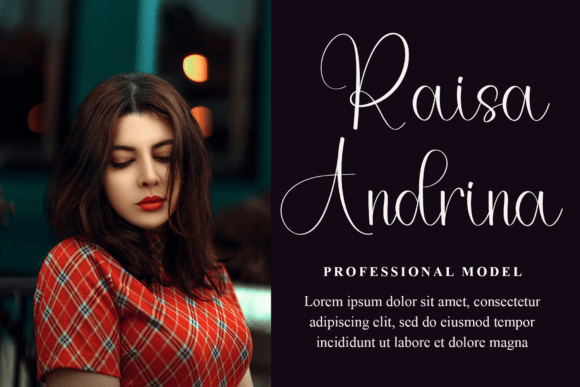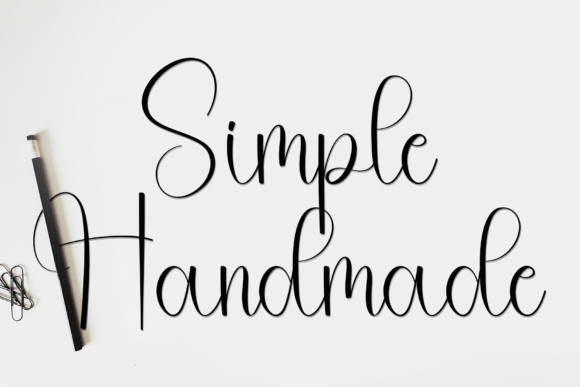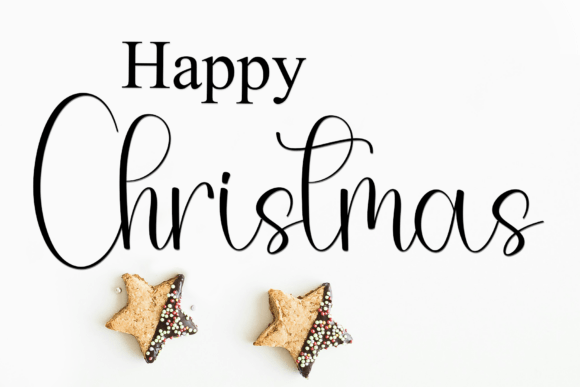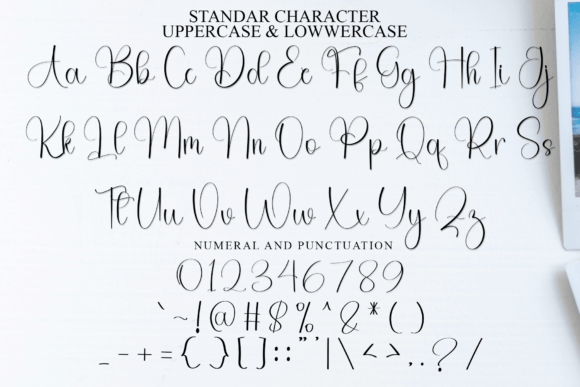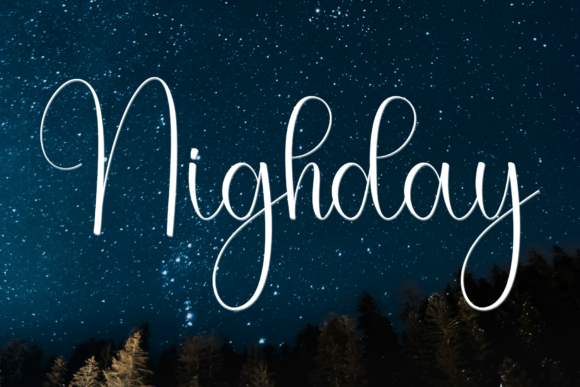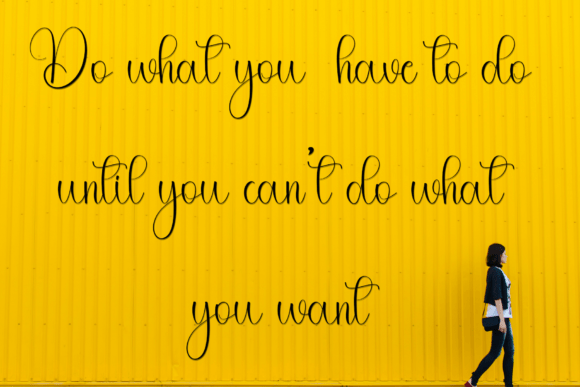
Dreaming Font: Elevate Your Designs with a Soft and Unique Touch
In the world of typography, fonts play a crucial role in making designs stand out. One such font that has gained attention for its distinctive and eye-catching style is the Dreaming Font. Designed with a soft and unique touch, this font is perfect for designers, crafters, and creative professionals looking to add a special character to their work.
The Distinctive Features of Dreaming Font
Dreaming Font boasts distinctive strokes that set it apart from other fonts. Its unique design makes it meaningful and versatile, suitable for a wide range of applications. Whether you’re working on a design project, craft, or other creative work, this font is sure to make your work more appealing and engaging.
With its various characters, Dreaming Font is an ideal choice for design projects, crafts, and other creative works. The font’s natural style makes it perfect for use in a variety of products, from digital designs to print materials. Whether you’re creating a logo, brochure, or social media graphic, Dreaming Font is sure to elevate your design.
Ideal for a Wide Range of Products
Dreaming Font’s natural style makes it suitable for a wide range of products. From stationery and invitations to posters and flyers, this font is sure to make your designs stand out. Its versatility also makes it perfect for use in branding, packaging, and advertising materials.
Enhance Your Designs with Dreaming Font
Using Dreaming Font in your designs can make a significant difference. Its soft and unique touch can add an extra layer of appeal to your work, making it more engaging and eye-catching. Whether you’re a professional designer or a crafter, this font is sure to inspire your creativity and help you produce stunning designs.
Why Choose Dreaming Font?
So, why choose Dreaming Font over other fonts? Here are a few reasons:
- Unique Design: Dreaming Font has a distinctive style that sets it apart from other fonts.
- Versatility: This font is suitable for a wide range of applications, from design projects to crafts.
In conclusion, Dreaming Font is a beautiful and eye-catching font that’s perfect for designers, crafters, and creative professionals. Its distinctive strokes, versatility, and compatibility make it an ideal choice for a wide range of applications. Whether you’re working on a design project, craft, or other creative work, Dreaming Font is sure to elevate your design and make it more appealing to your audience.